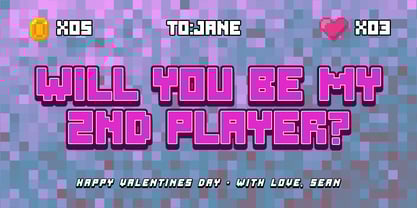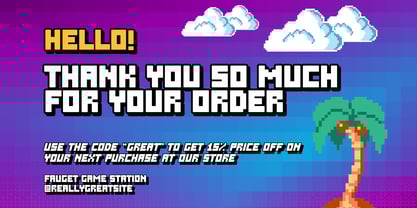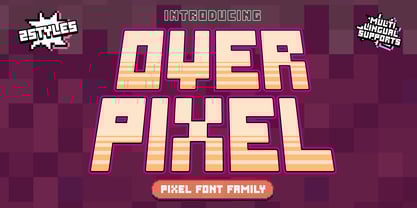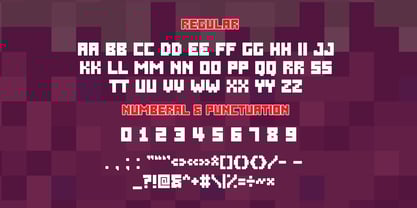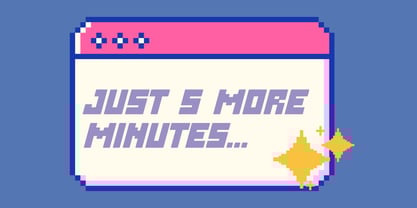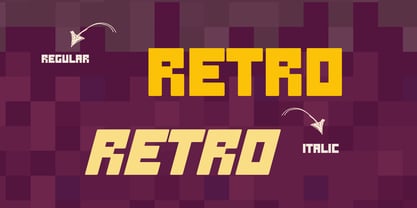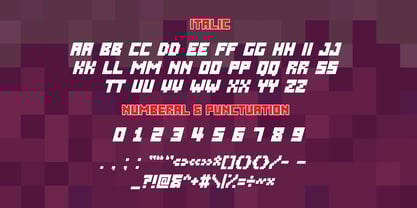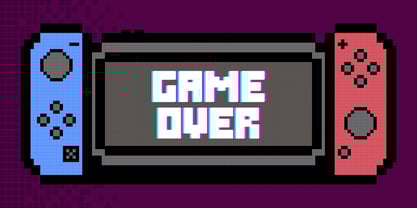
Over Pixel
by Brown Cupple Typeface
The Over Pixel Font Family was designed by Nattha​ Potchanad​ and published by Brown Cupple Typeface. Over Pixel contains 2 styles and family package options.
Over Pixel is a heavy, square-cut display font inspired by the aesthetics of voxel art and sandbox games. With chunky, brick-like characters and a pixel-perfect edge, this typeface brings a sense of structure, fun, and retro flair to any digital project. Whether you’re crafting a game UI, designing titles for an 8-bit adventure, or building bold brand visuals.